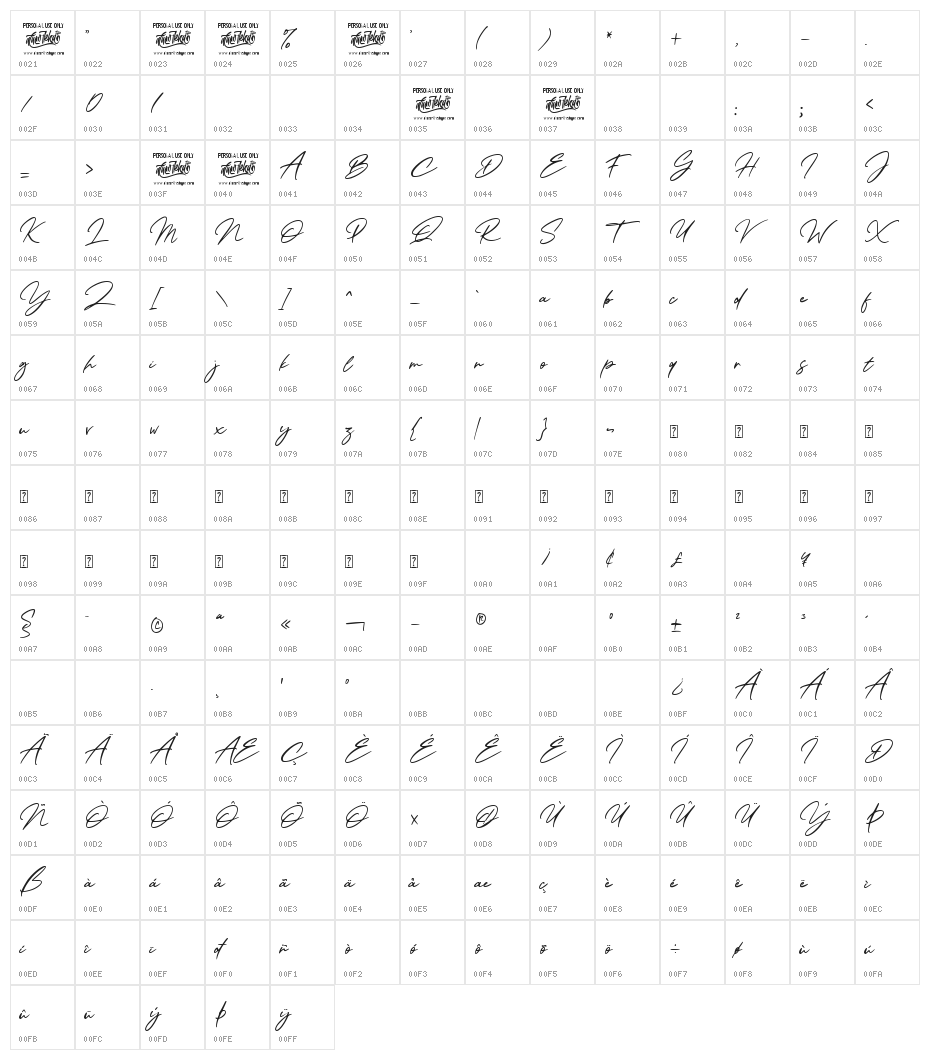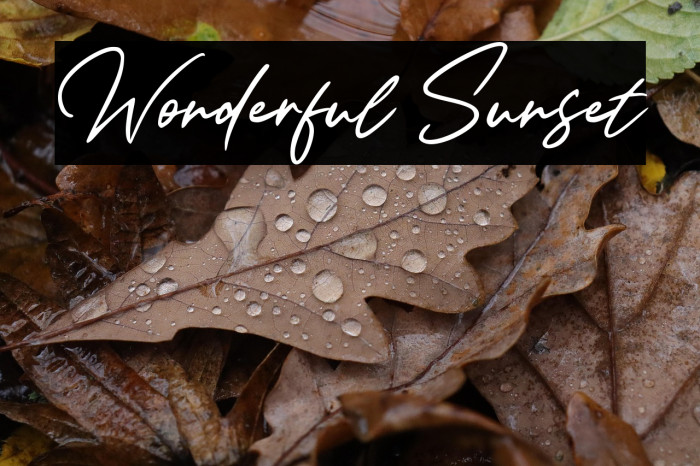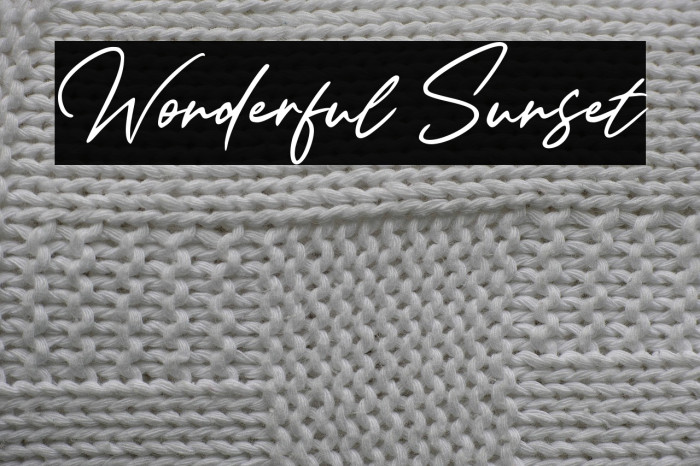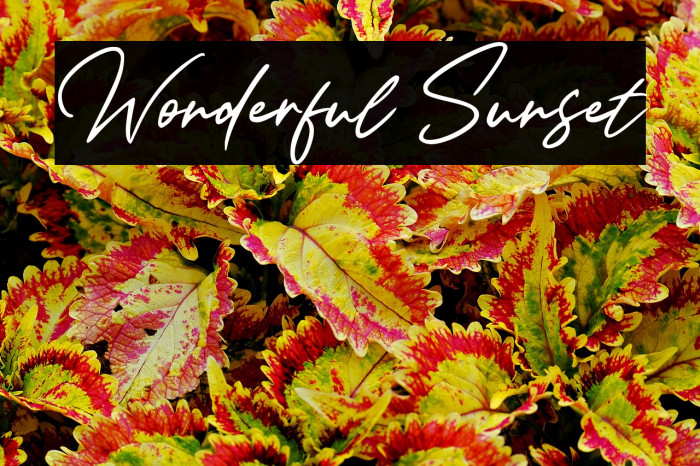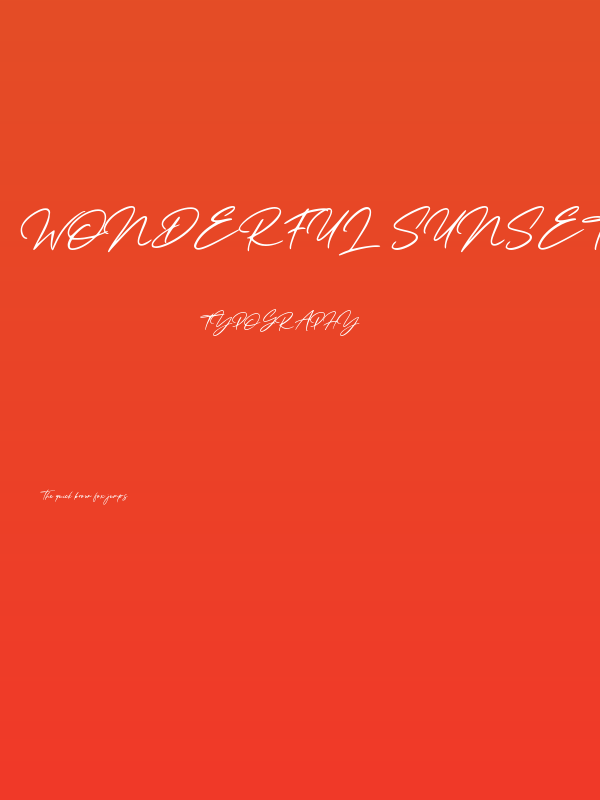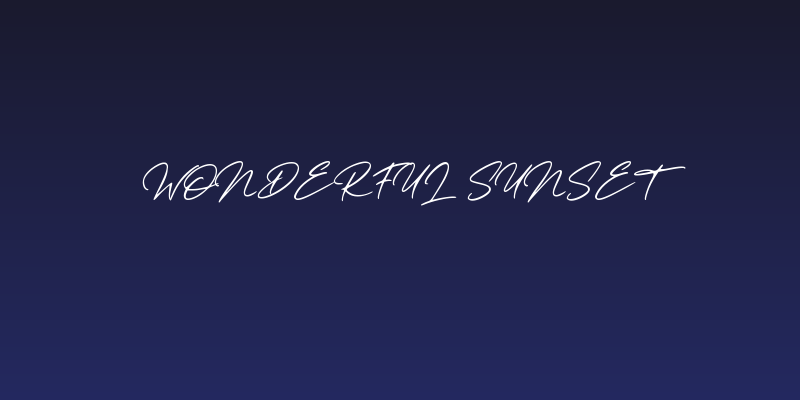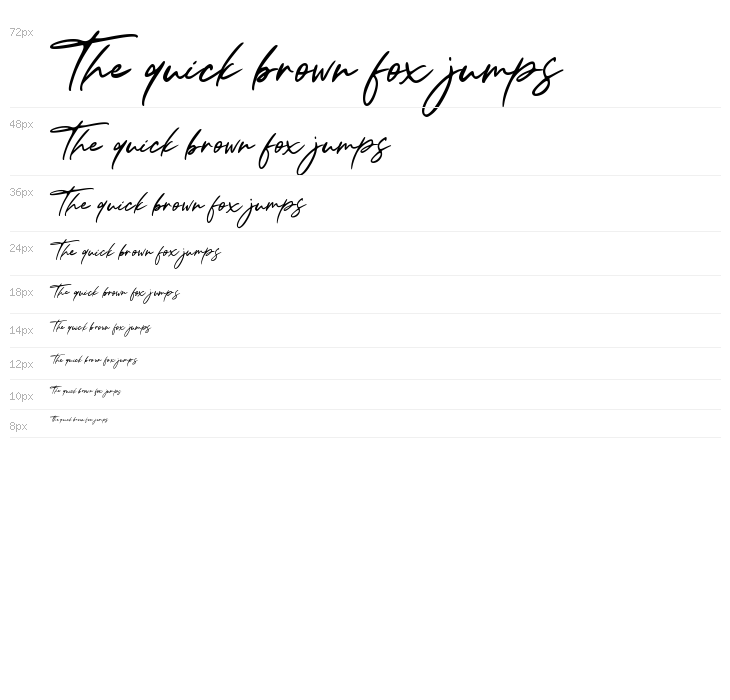
Wonderful Sunset Font
Wonderful Sunset Description
This font features a flowing, cursive style with elegant, sweeping lines that create a sense of movement and grace. The letters are connected, giving it a handwritten appearance that is both sophisticated and approachable. The uppercase letters are slightly larger and more pronounced, while the lowercase letters maintain a consistent flow. The numbers and special characters are designed to match the overall aesthetic, ensuring a cohesive look across all text. This font is ideal for projects that require a personal touch, such as invitations, greeting cards, or branding materials that aim to convey elegance and warmth.
| Overall Style | Elegant, Handwritten |
| Proposed Projects | Ideal for wedding invitations, personal branding, greeting cards, and elegant stationery. |